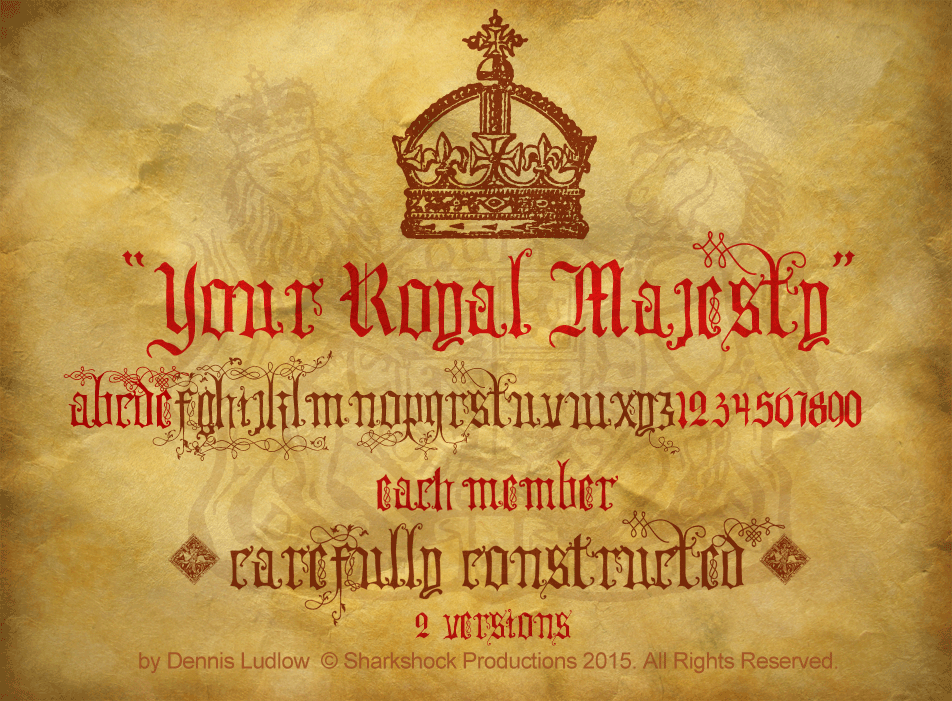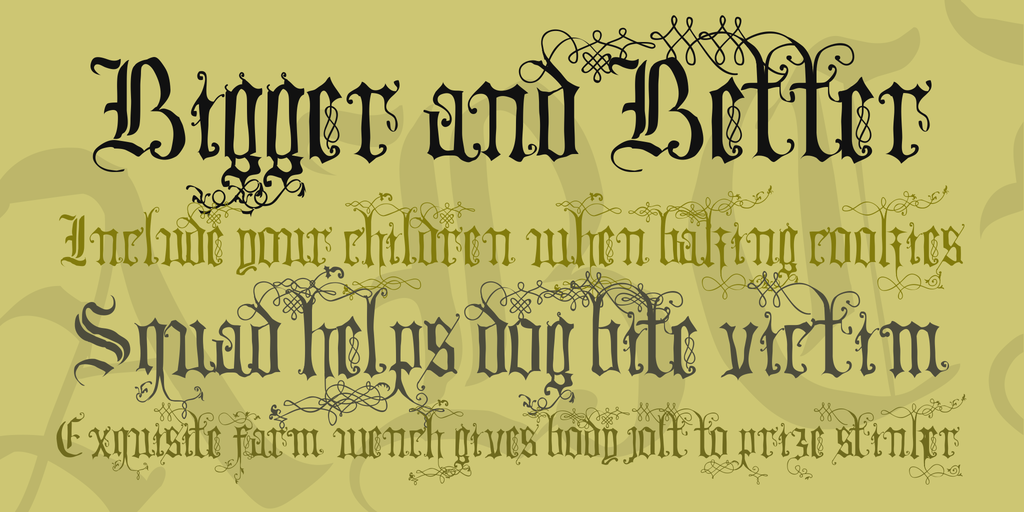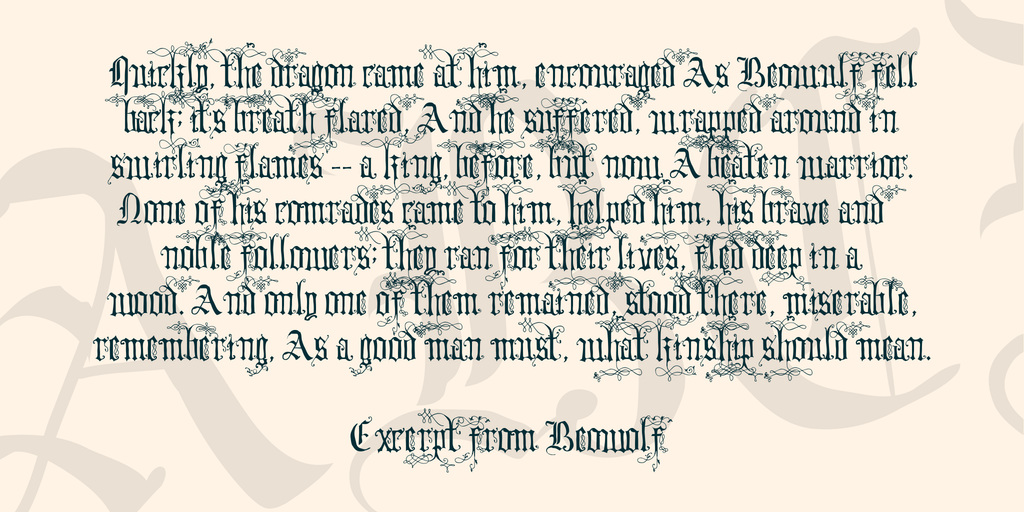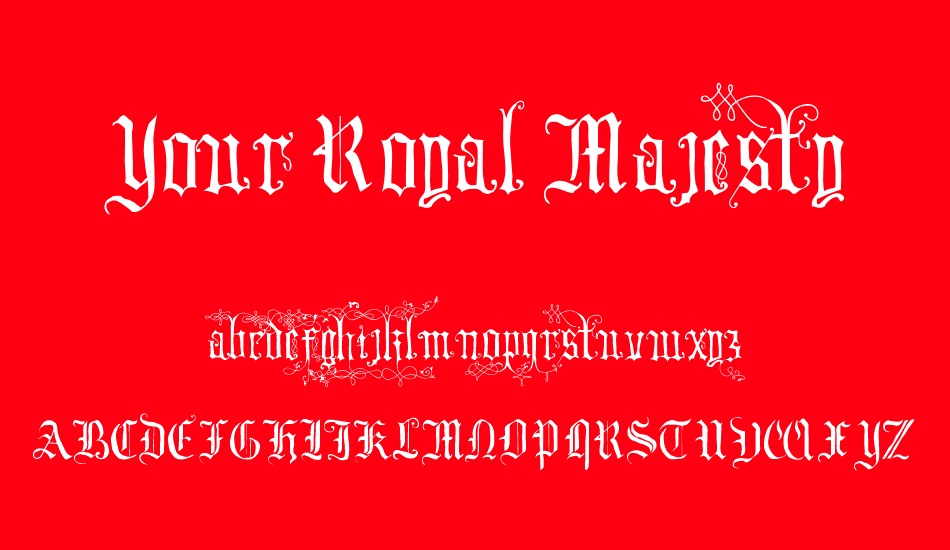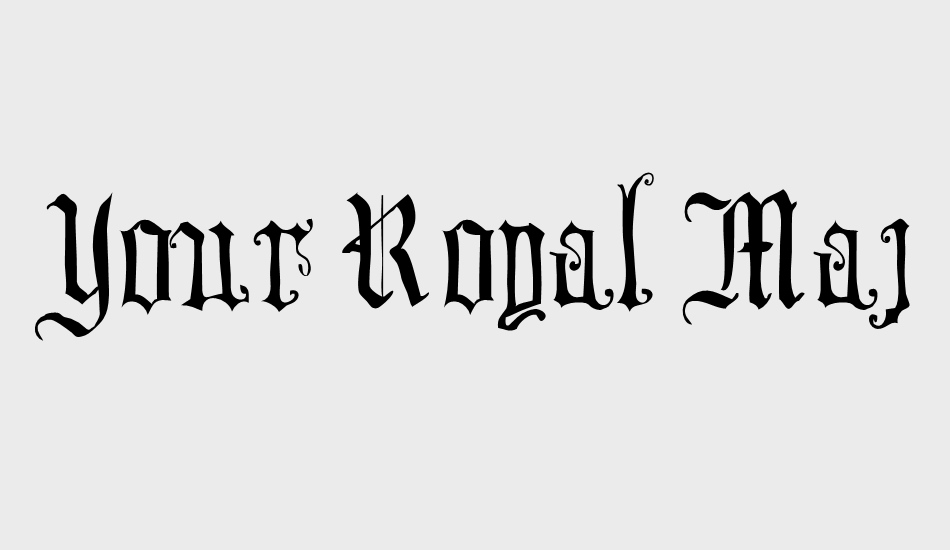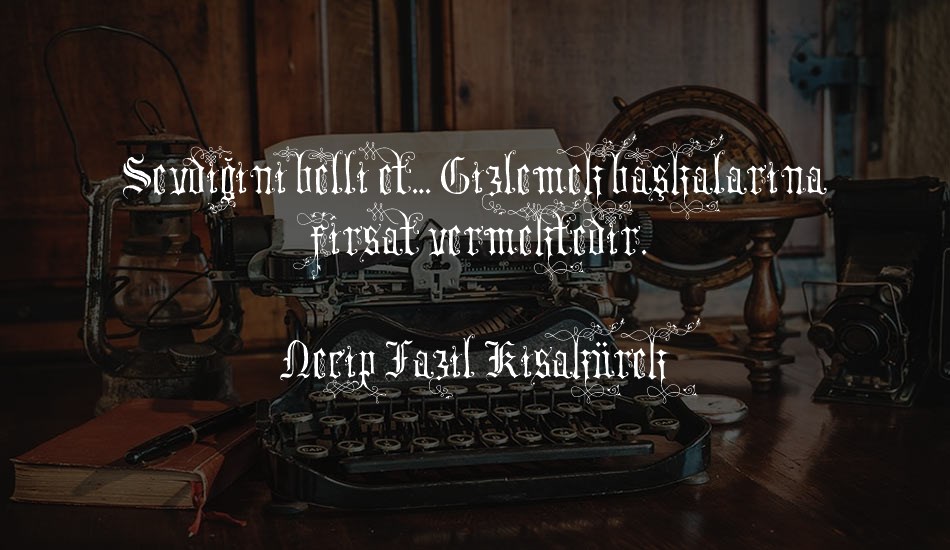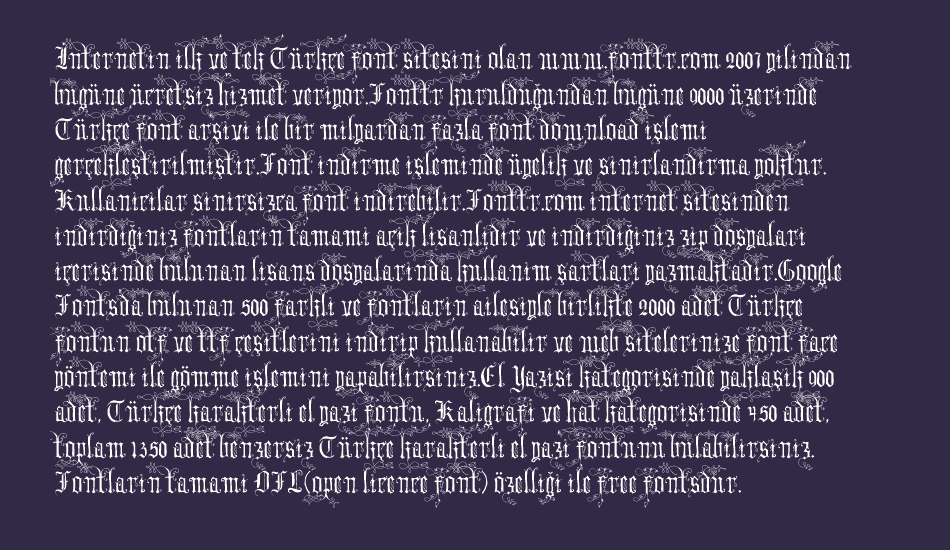
Your Royal Majesty Font
Your Royal Majesty font
Thank you for downloading this most medieval of typefaces! Inspiration for this was snatched up from wood engravings and olde world manuscripts of the middle ages thru the 16th century. While very
basic punctuation is present, most of the rest is replaced by symbols, crests, flags, crowns, and several other decorative graphics throughout the era. There are actually two different
versions: "Your Royal Highness" is similar but omits pretty much 99% of the decorative lines found on the lowercase ascenders and descenders and contains full punctuation. This version is only